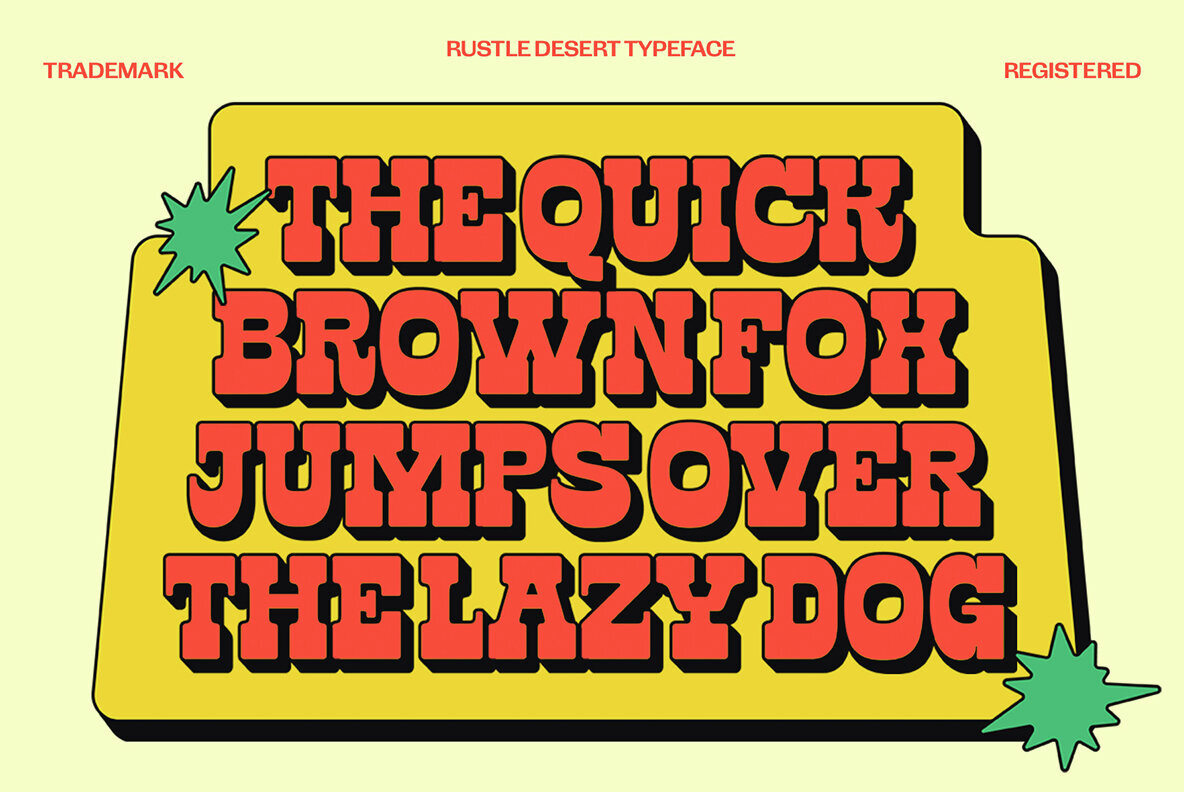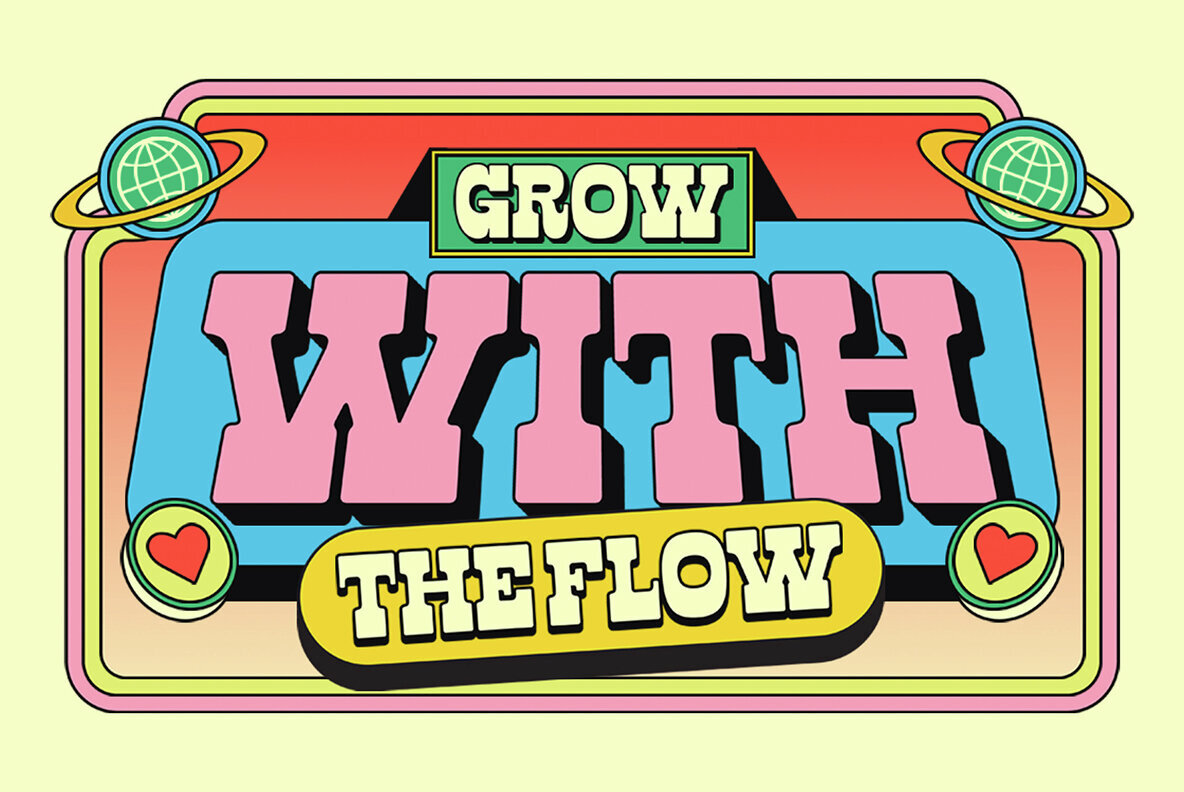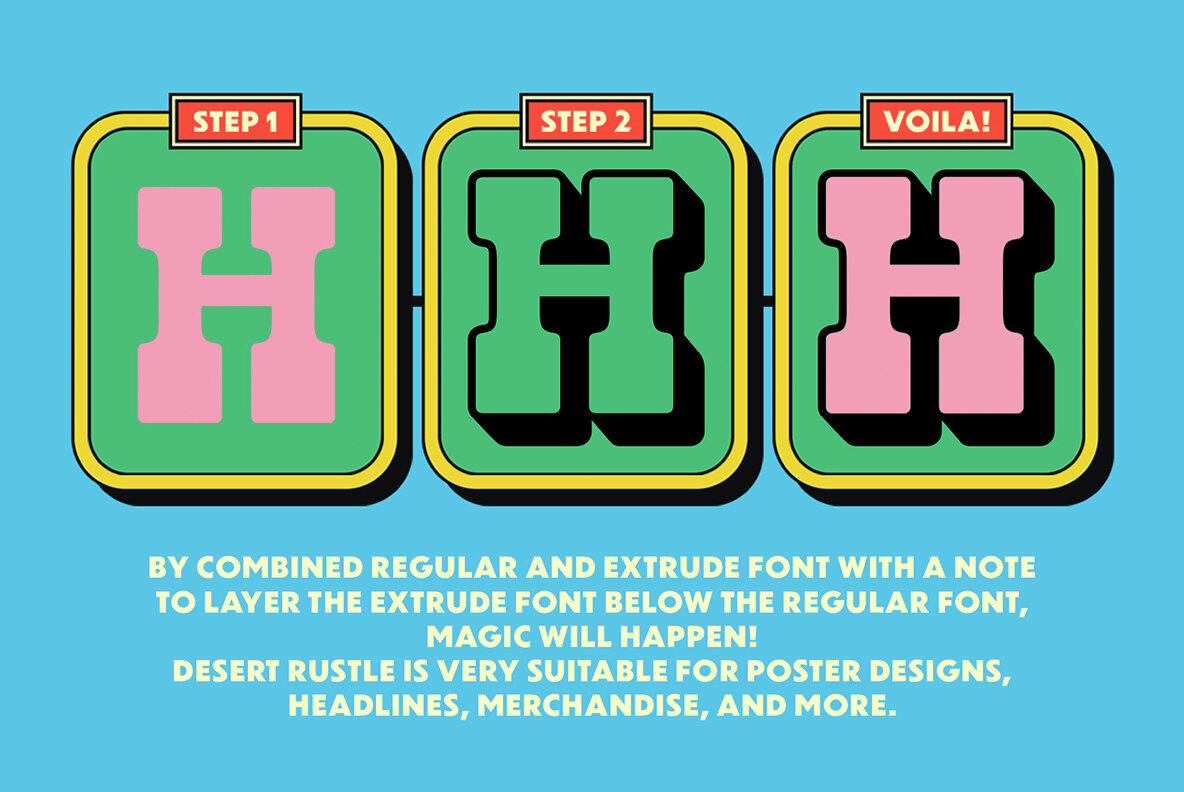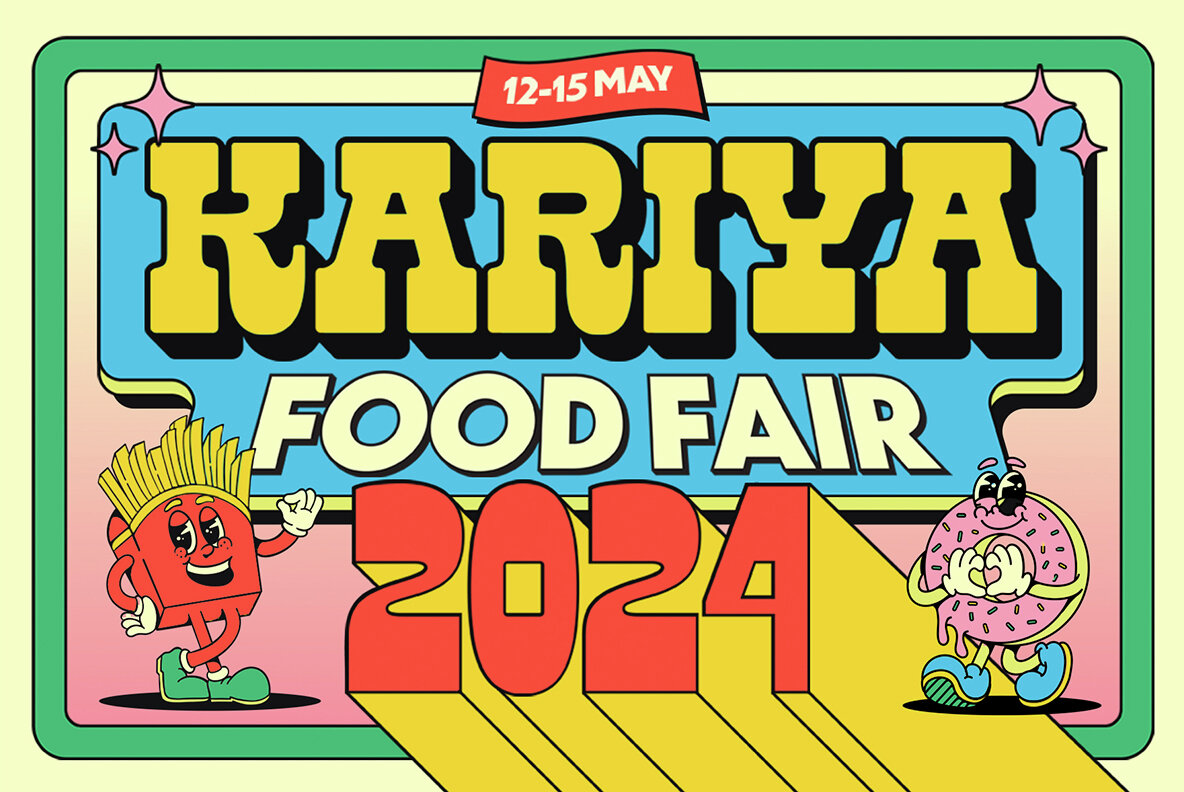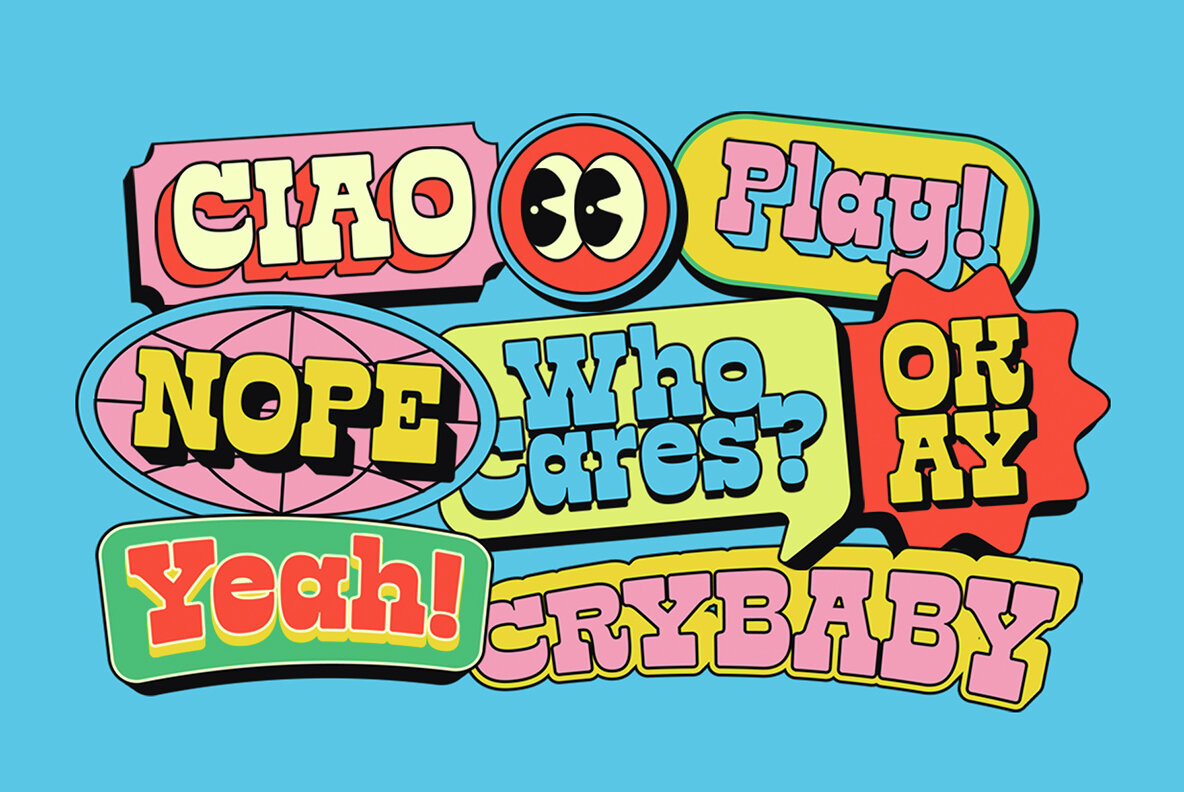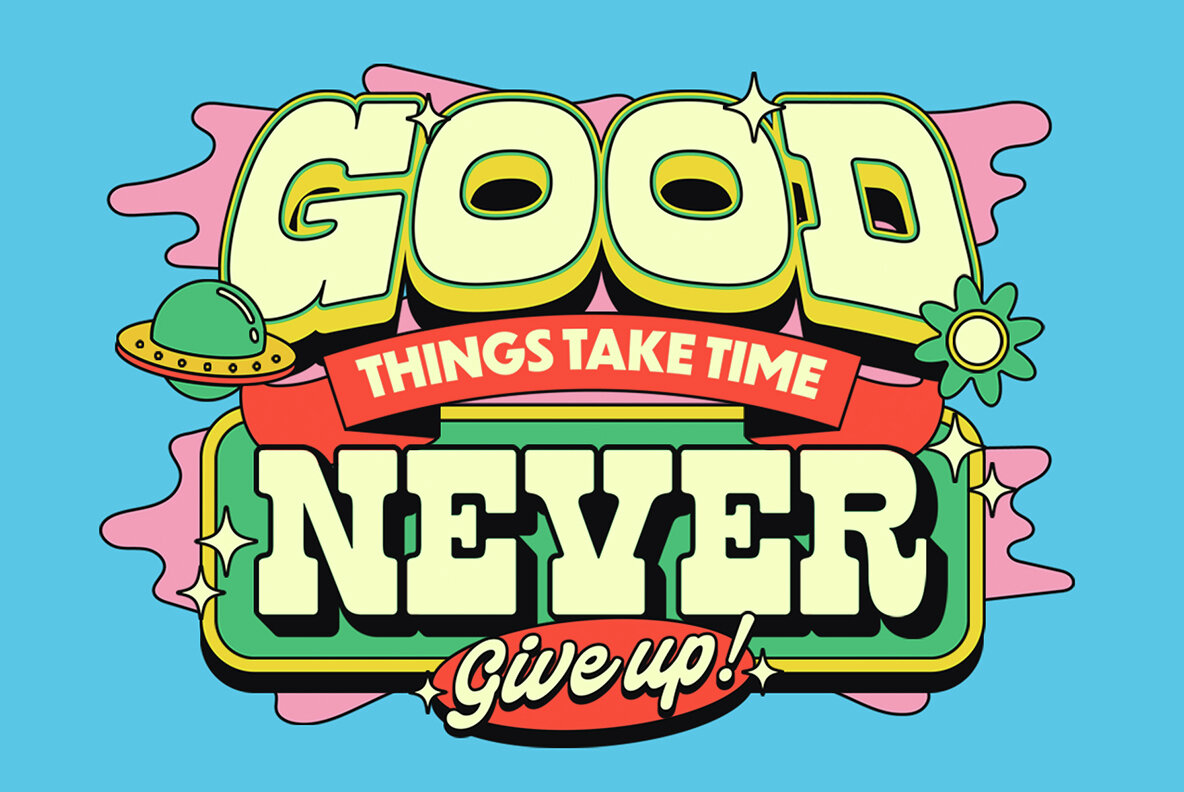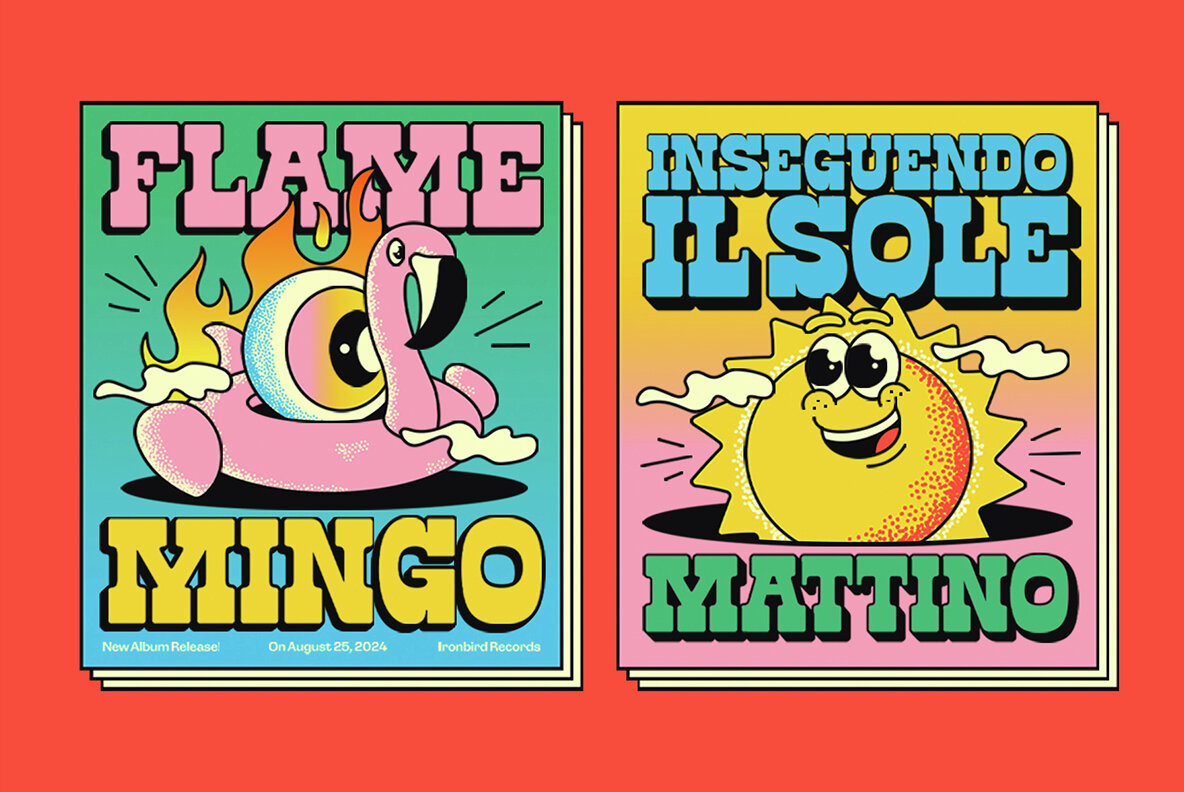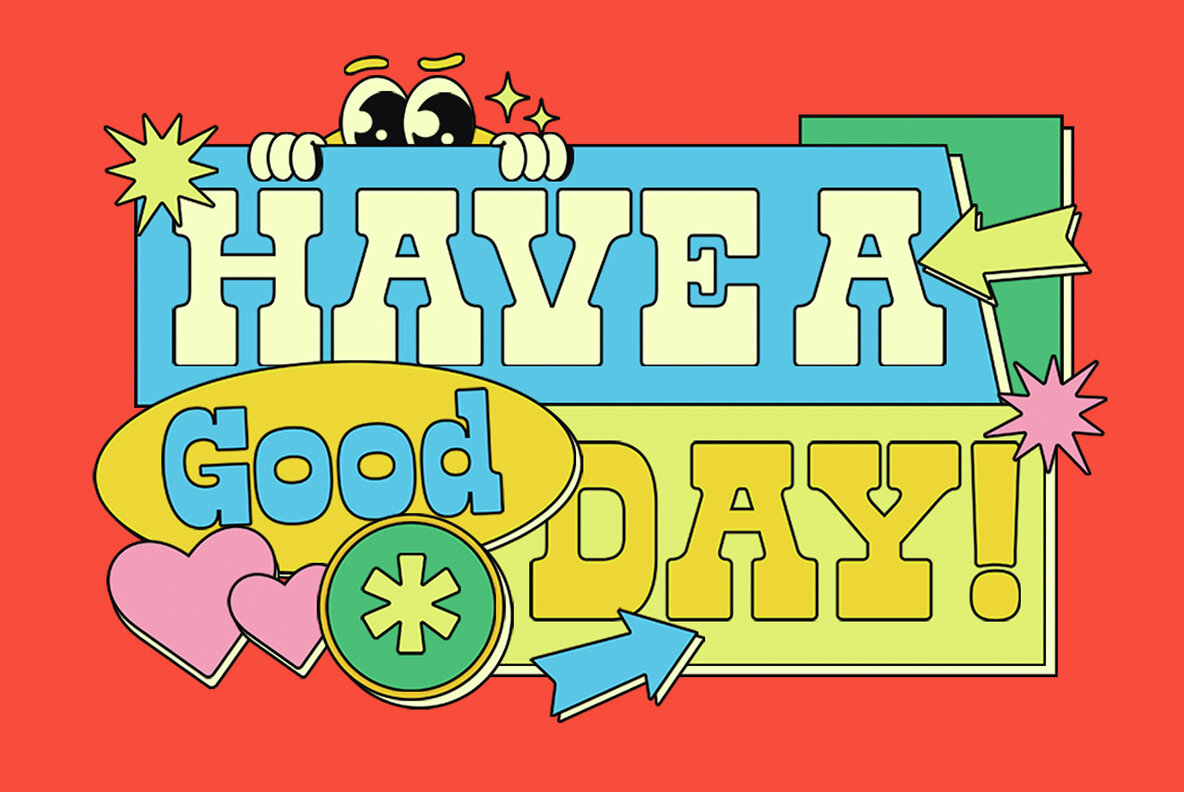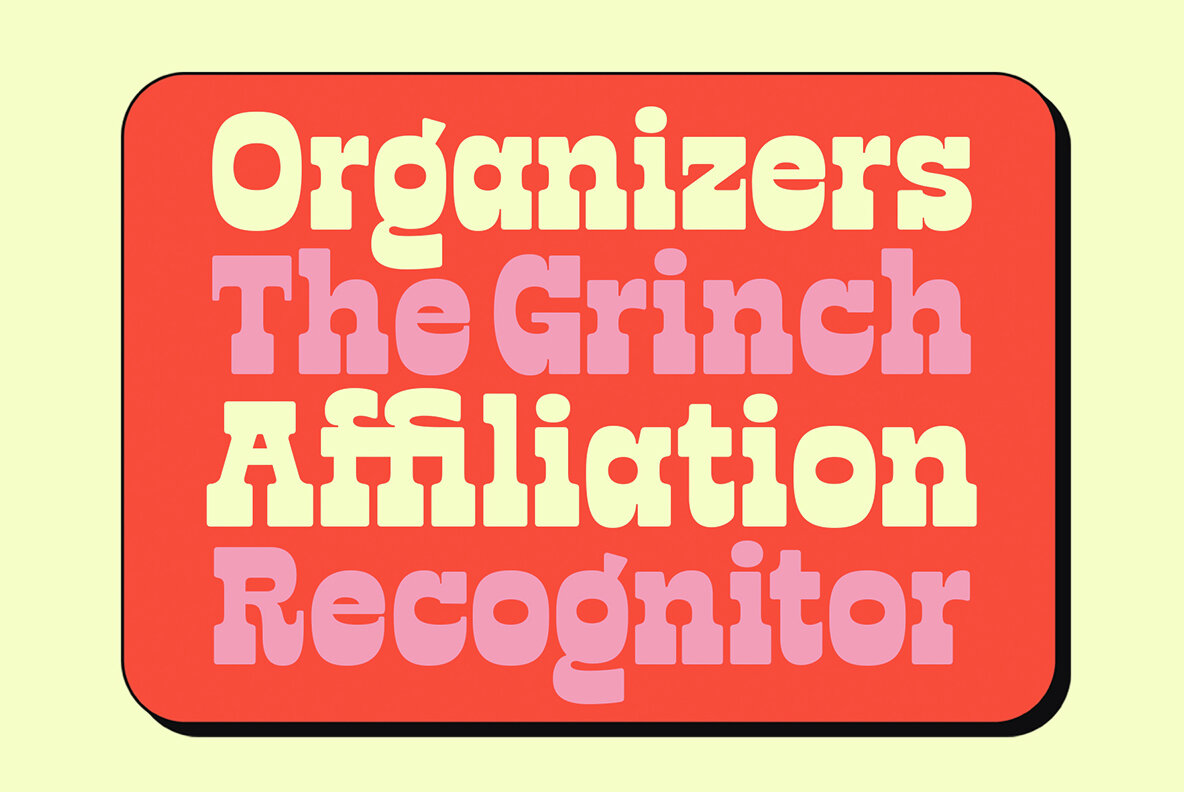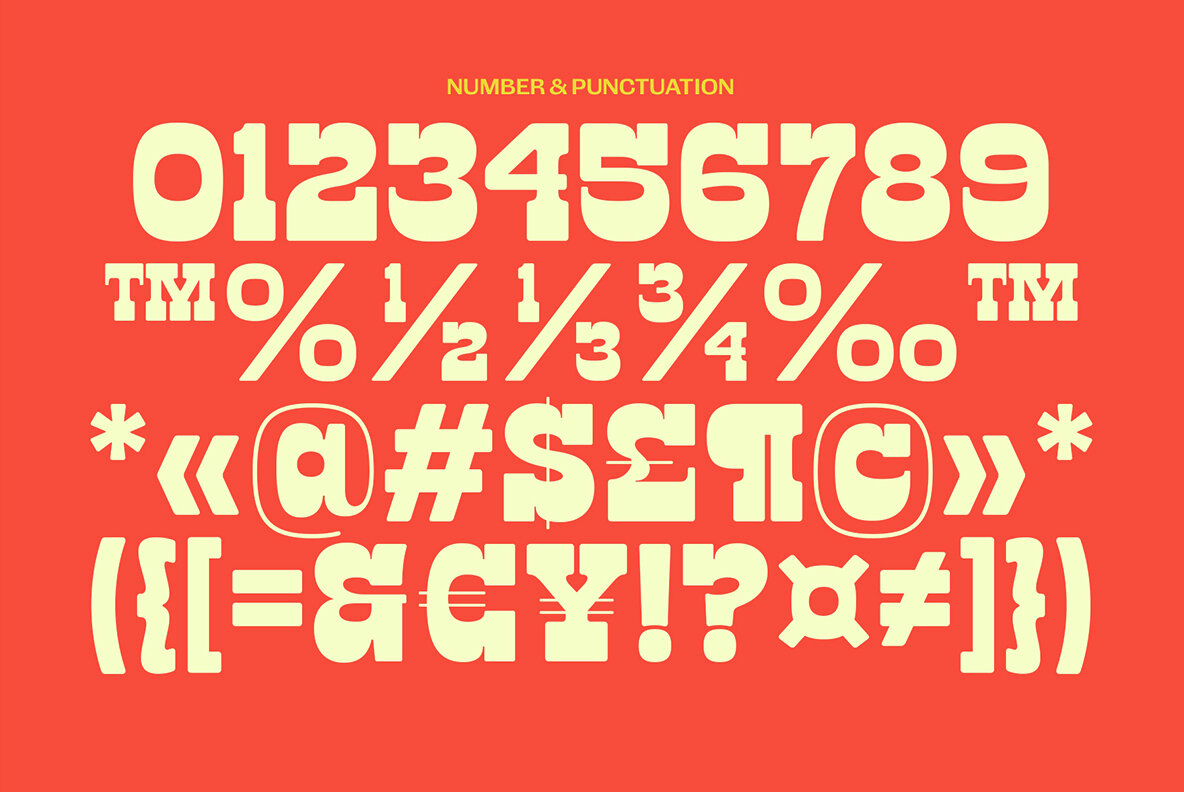
TNSC Rustle Desert Font
TNSC Rustle Desert is a slab serif font. The 4th released font from The Native Saint Club. Rustle Desert is inspired by pop design posters from the 80s and 90s. Comes in 2 styles, Regular and Extrude. This font supports multilingual language (support for 89 languages). Rustle Desert is perfect for titles, design posters, logotypes, merchandise, flyers, packaging, and etc. very helpful for communicating your design.